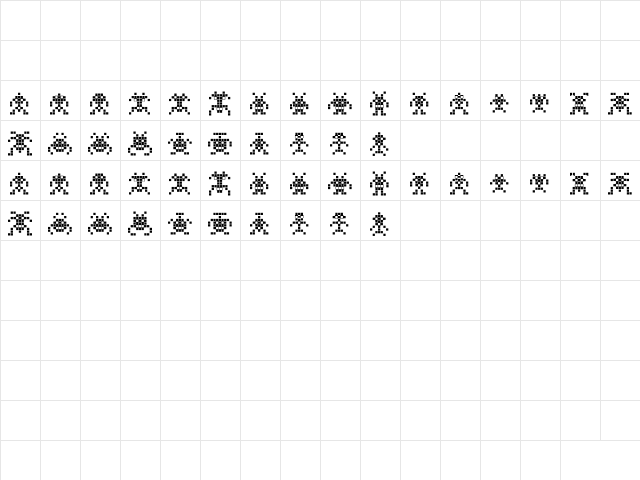
Binary SoldiersII Regular
Design Context for Binary SoldiersII Typeface
Binary SoldiersII draws on military and industrial lettering traditions, with forms that communicate strength and precision.
Designed for tactical branding, military-inspired apparel, action game UI, and utility-focused signage.
Font Pairing: Use alongside a condensed or geometric sans for supporting copy — keep the pairing bold, functional, and free of ornament.
Pro Tip: Use Binary SoldiersII at medium-to-large sizes where its utilitarian structure can be appreciated — the character detail gets lost at small sizes.